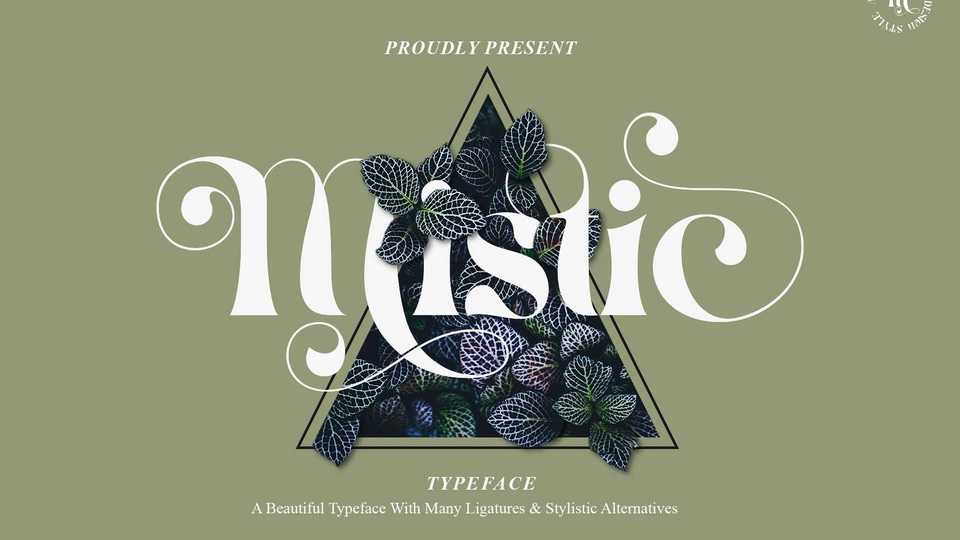
Download Mistic font, a modern serif typeface with an elegant and bold concept. Mistic is perfect for designs with romantic themes such as wedding properties, Valentine cards, romantic quotes and others.